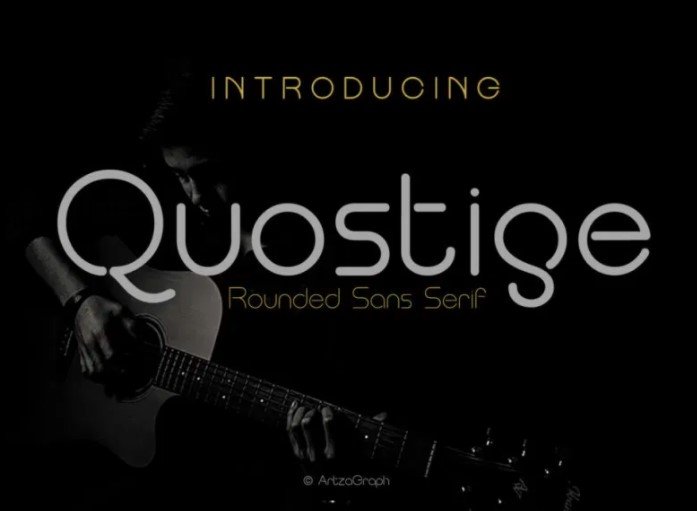
The typeface is best to work well with the combination of others fonts as well. You can utilize with the combination of moon font for getting awesome pairing
The font we are presenting today boasts great popularity globally and has the best reviews in the font market. This font features bold, regular, medium, thin, and boldest styles, each offering a unique look that can be effortlessly applied to your projects.
The typeface is best to work well with the combination of others fonts as well. You can utilize with the combination of moon font for getting awesome pairing features which will be great for your typographic projects.
On the other hand, this will also suitable for large display heading or headlines purpose. All of its features can work perfectly to make your design eye-catchy, attractive, great and incomparable to others.